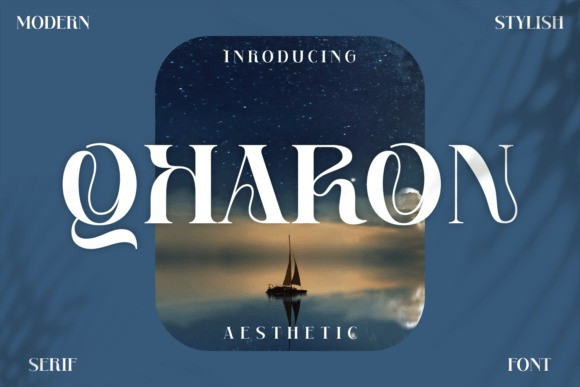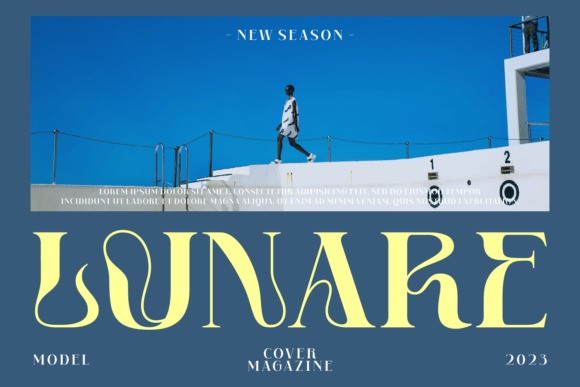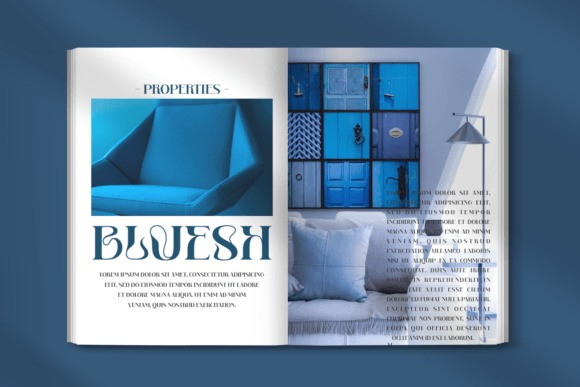
Qharon Font
Qharon is a stylish, uniquely-shaped serif display font. Specially designed for luxury, elegant, feminine projects, this font is perfectly suitable for creating modern, chic designs.